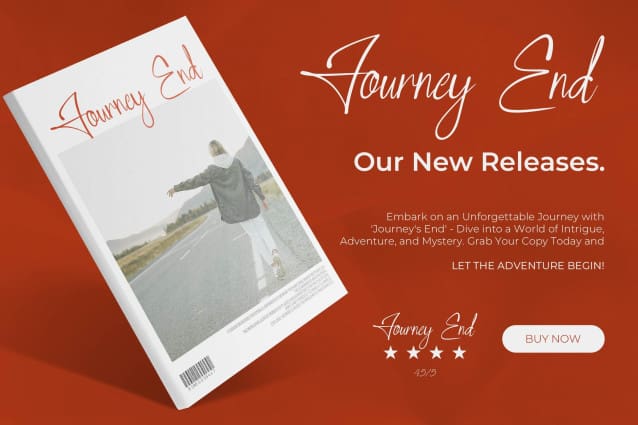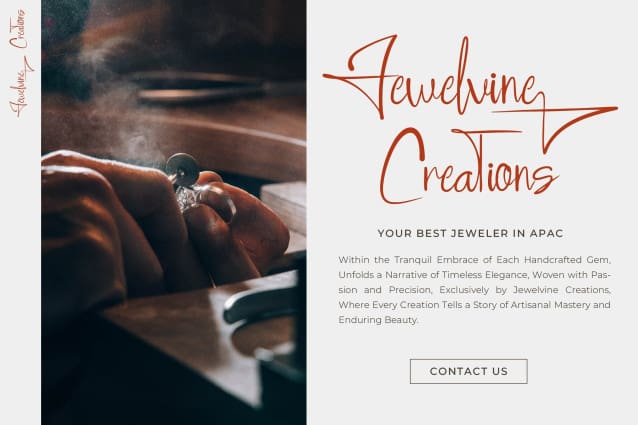
Benyoritha Script Font
Benyoritha Script Font | Handwritten Script Font , from Gracetypestudio, suitable for any projects such as: logos, branding projects, homeware designs, product packaging, mugs, quotes, posters, shopping bags, t-shirts, book covers, name card, invitation cards, greeting cards, label, photography, watermark, special events, and all your other lovely projects that need a beautiful script taste.